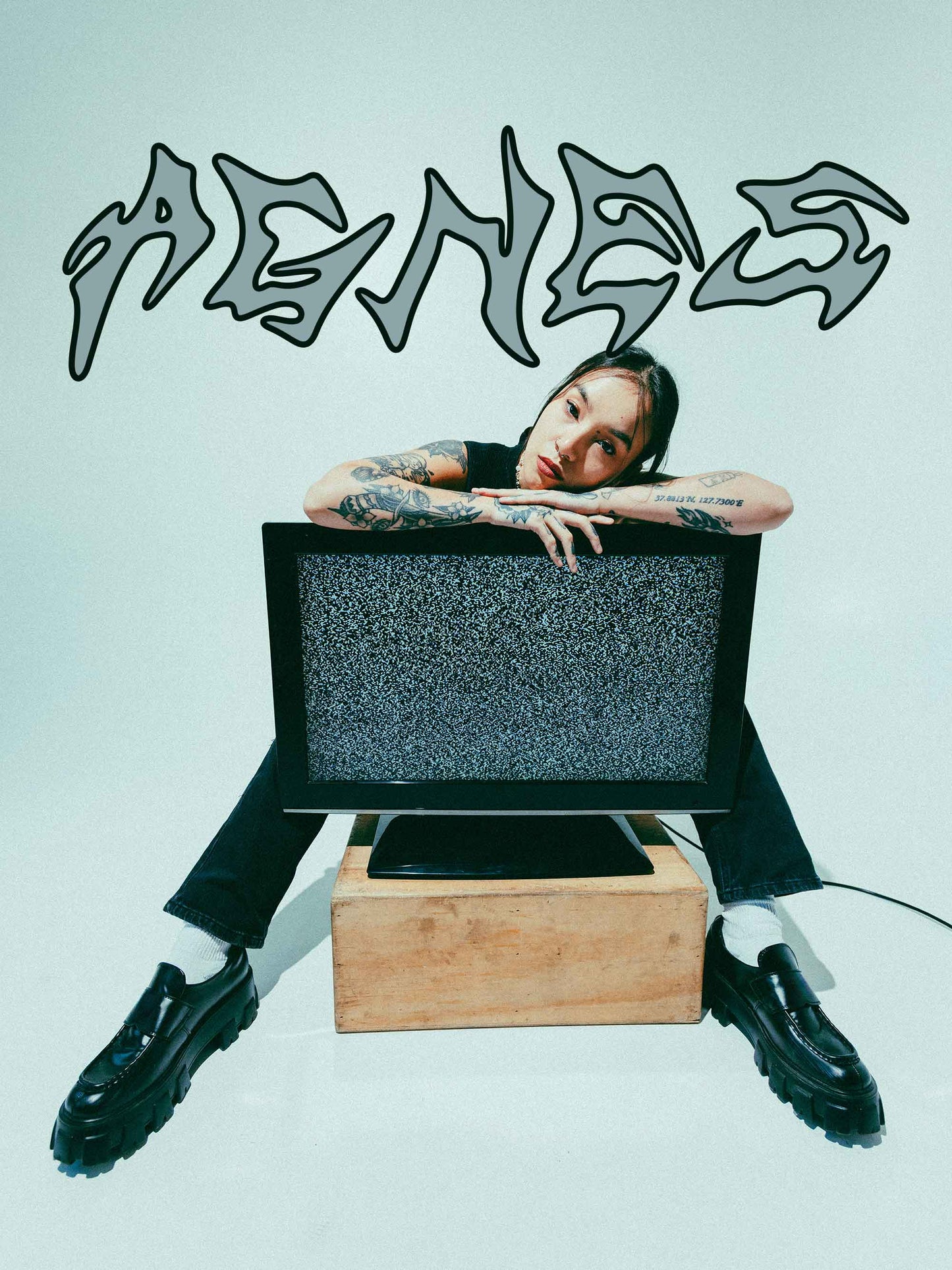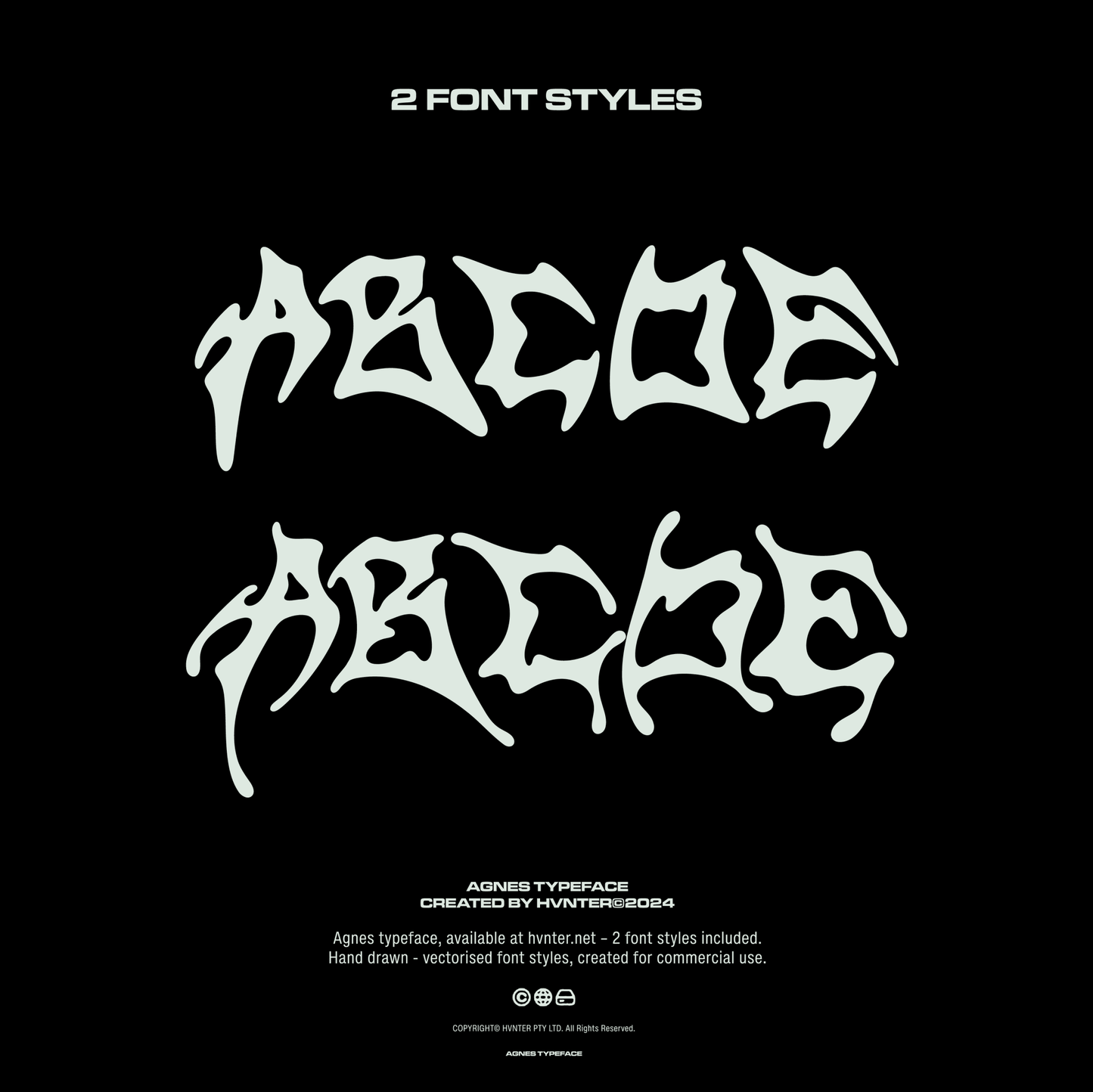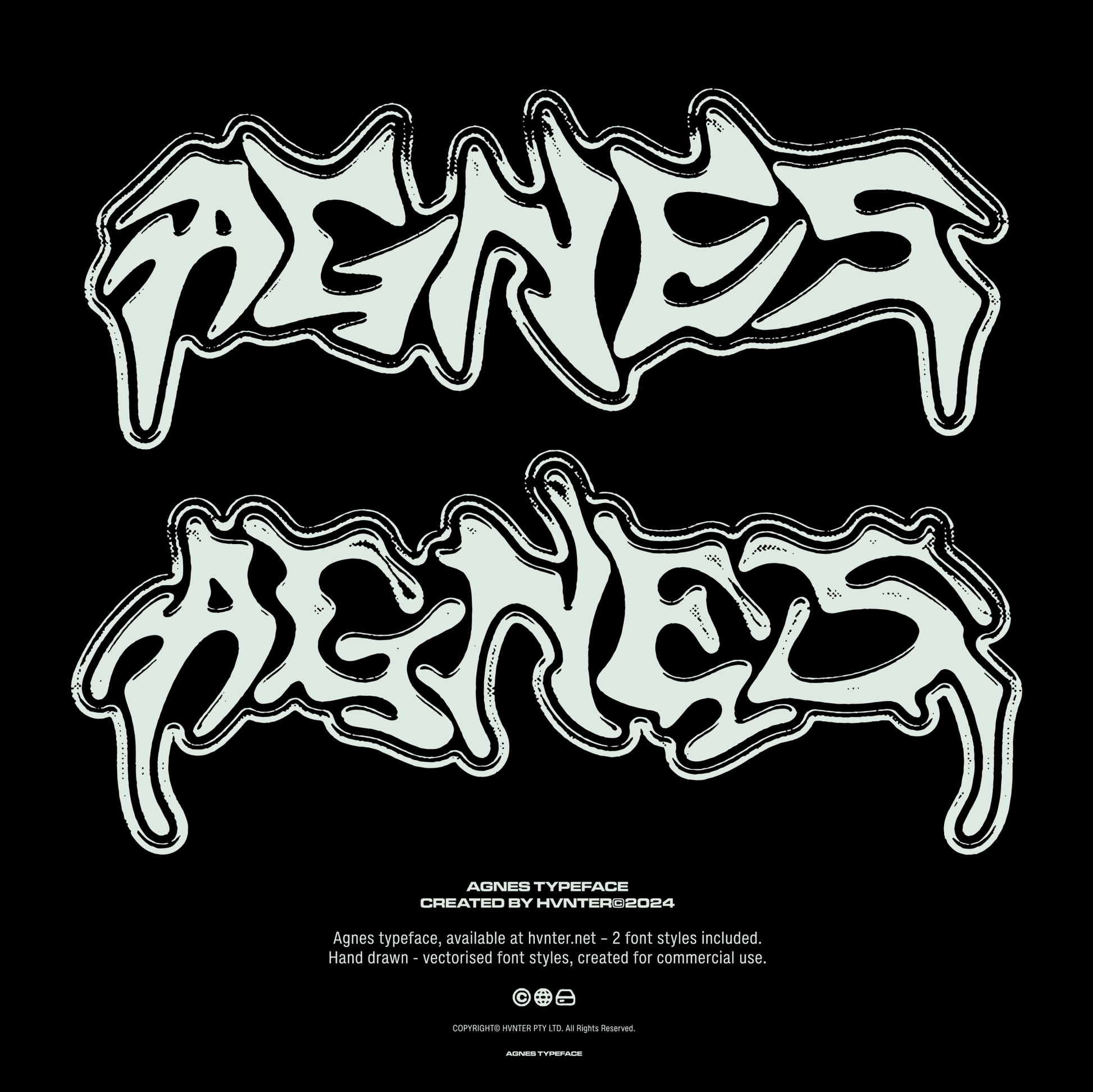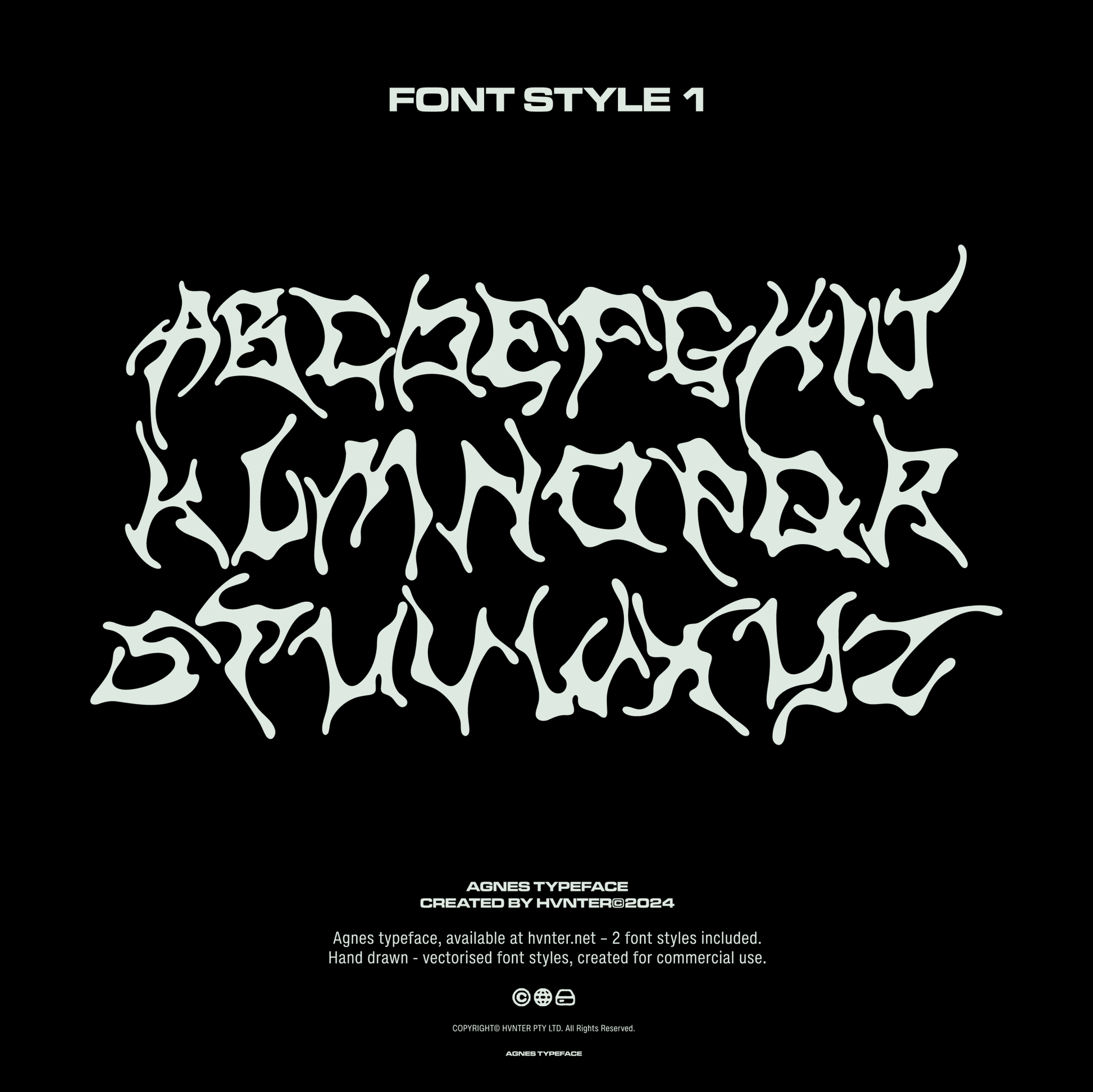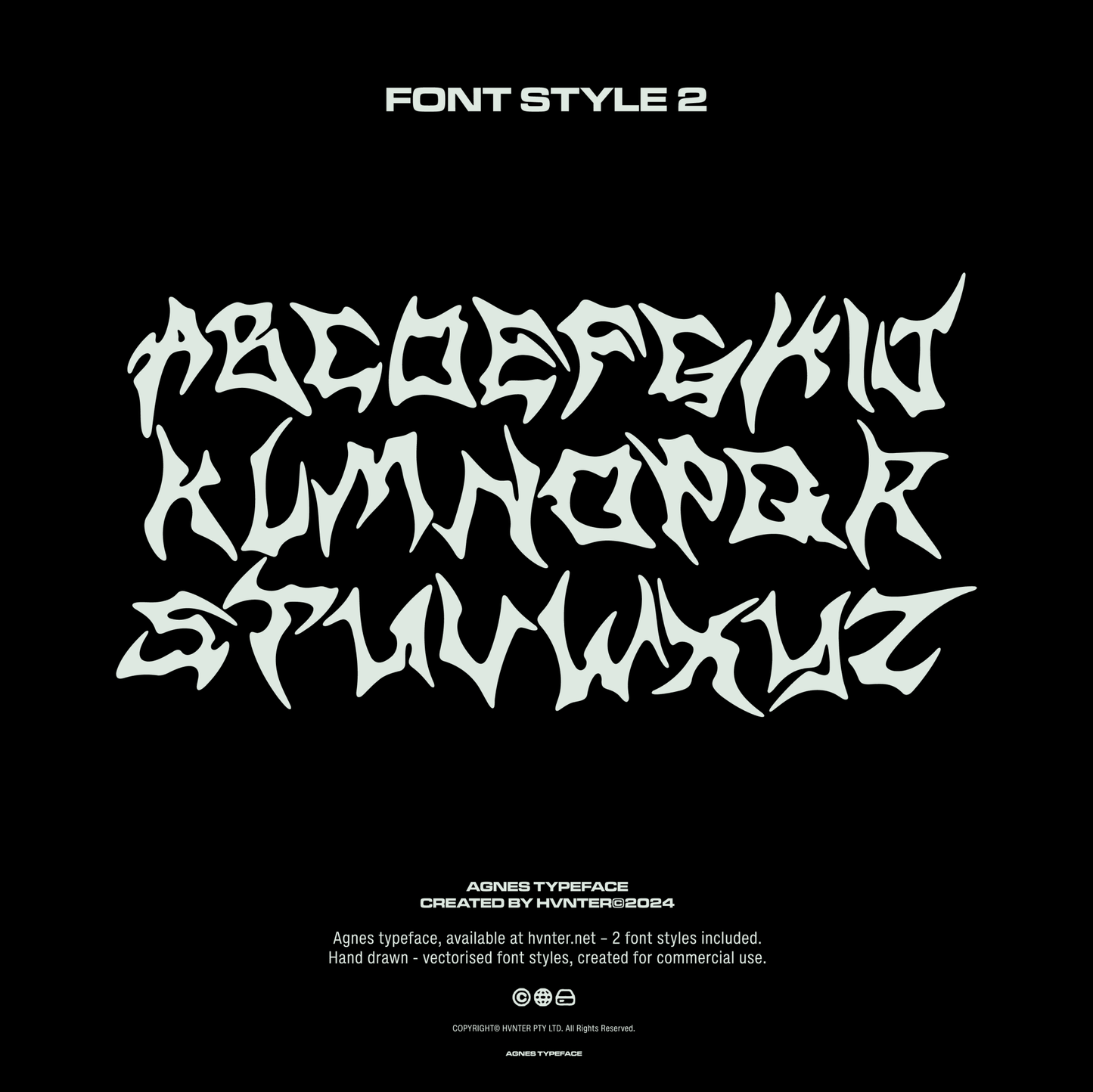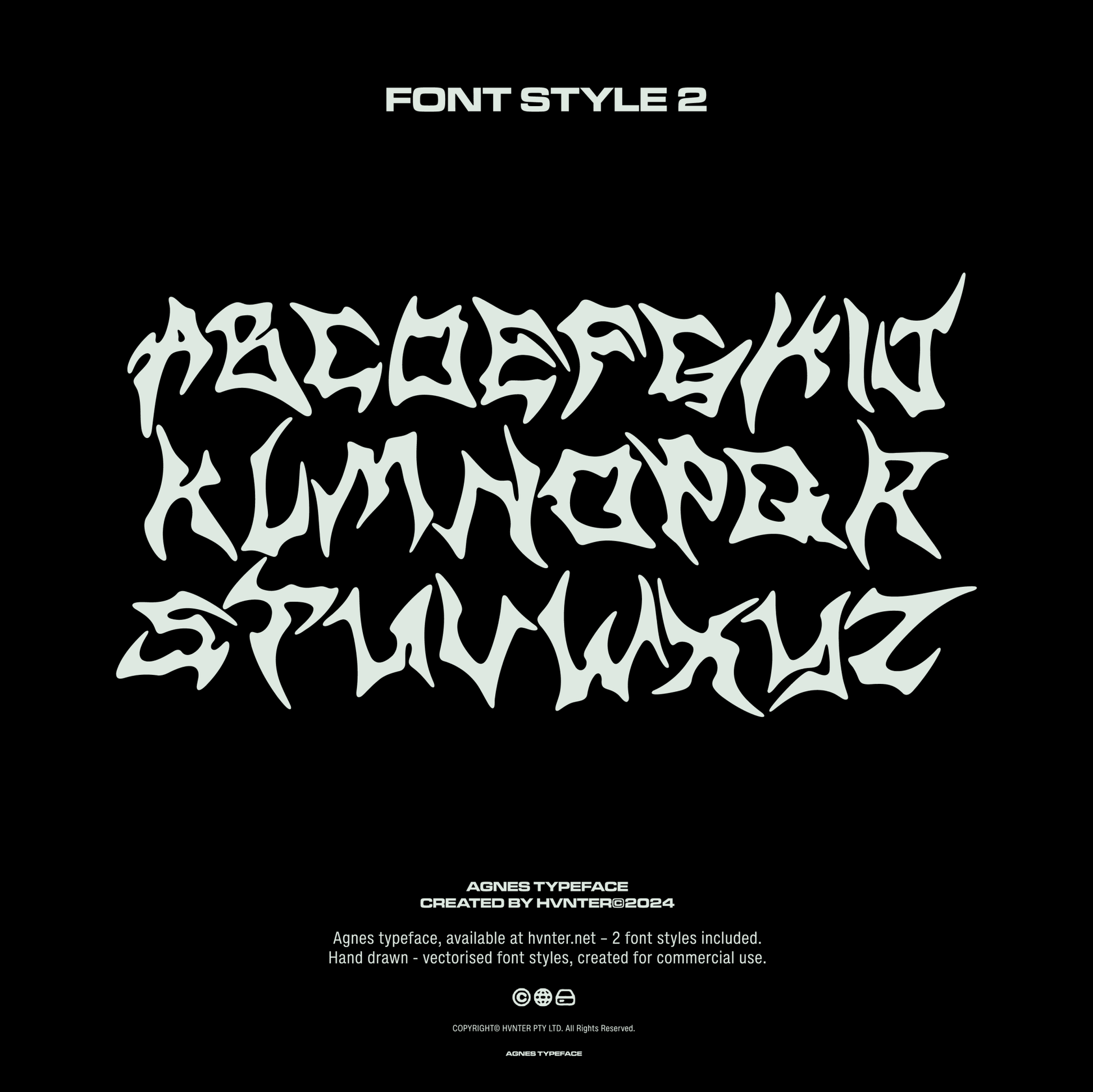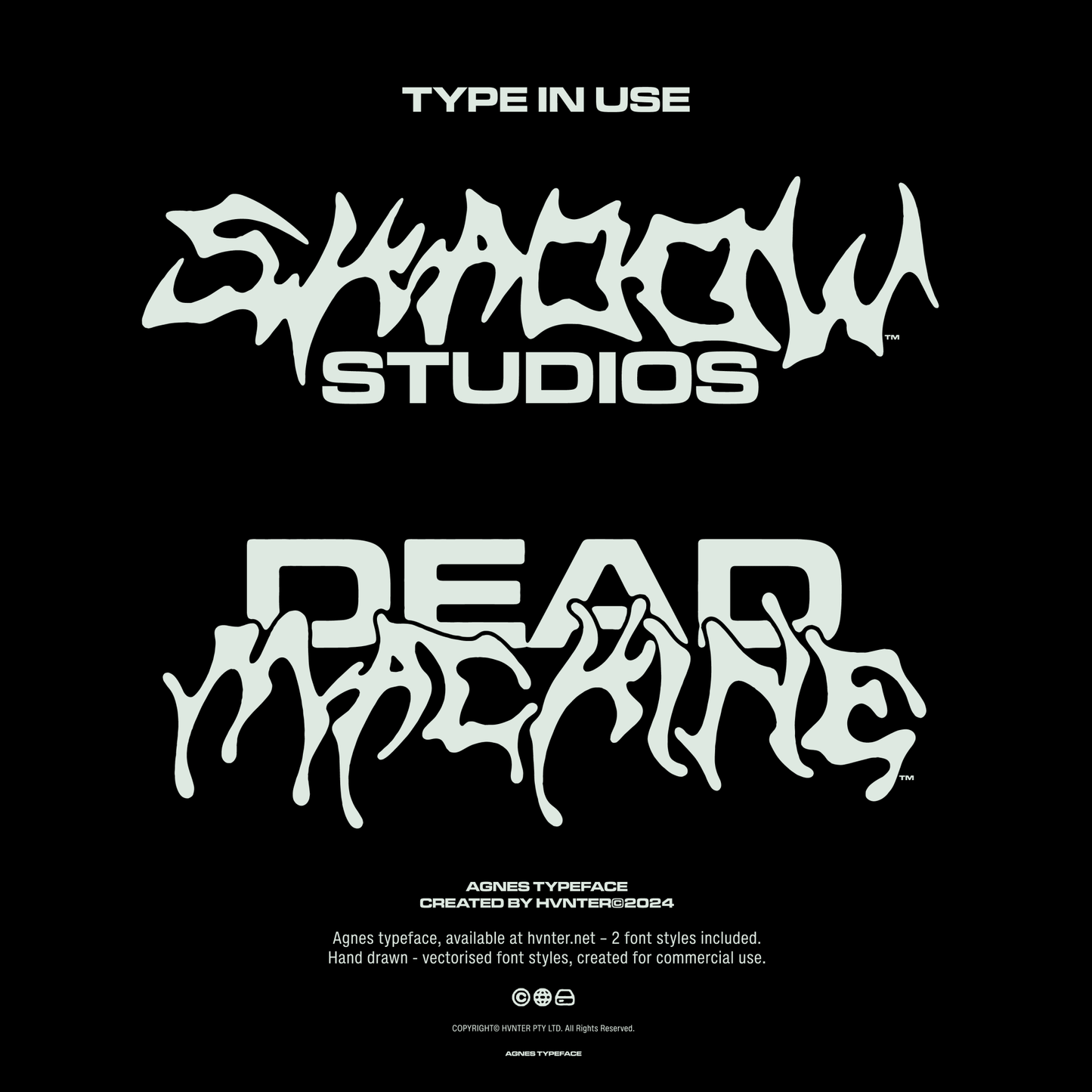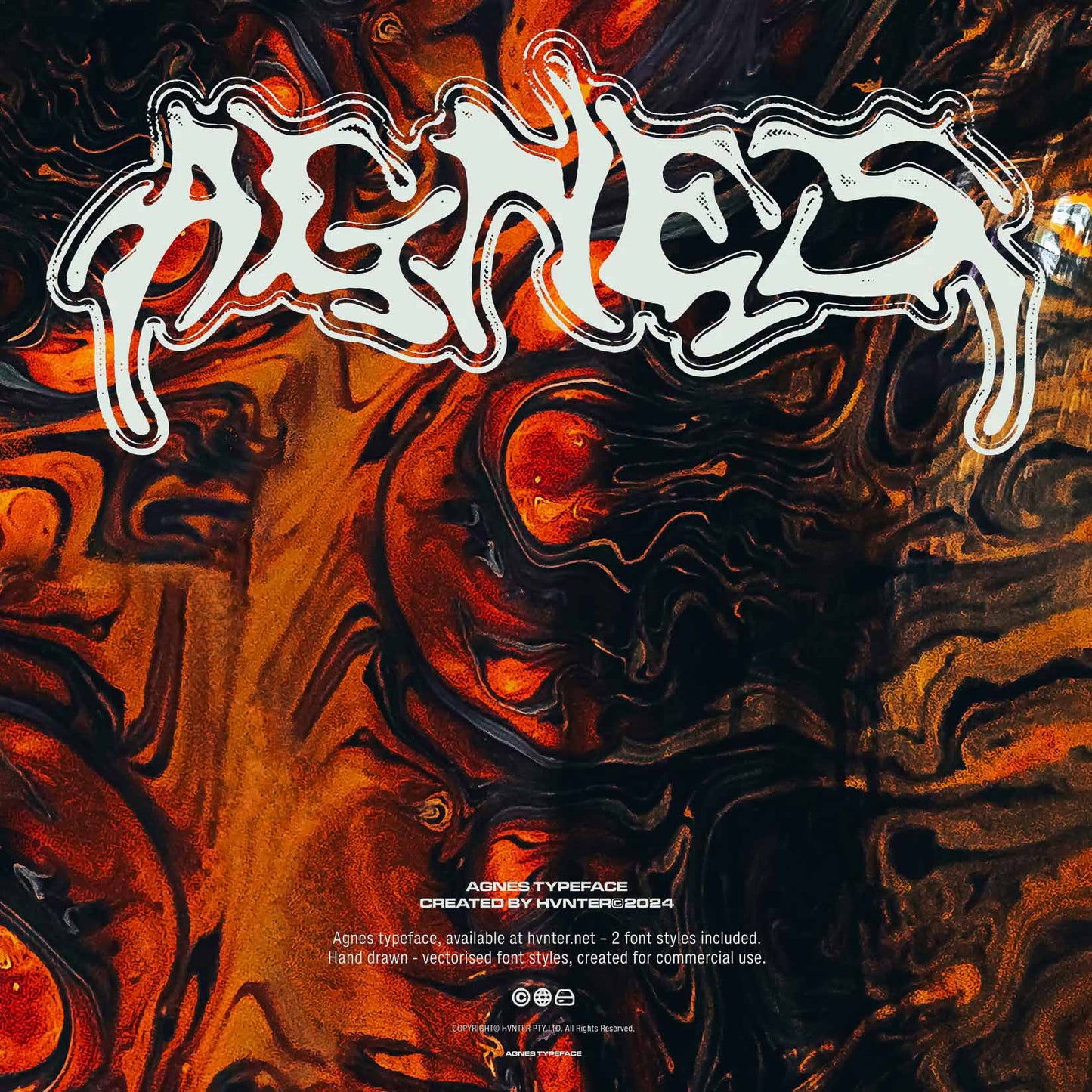
AGNES Typeface — Liquid Metal Letterforms
AGNES is a hand-drawn metal typeface that looks like it’s been pulled through a speaker cone and cooled in neon. It’s sharp, melted, and heavy—built for headlines, logos, album covers, posters, editorial title cards, and any layout that needs a little distortion baked into the DNA.
You get A–Z in two unique font styles, giving you two different flavors of the same idea: one more wiry + irregular, one more bold + blade-like. Both are designed to feel tactile—like ink, chrome, or a scratched-up VHS title sitting on top of a dead TV.
Best For
- Album + single cover artwork
- Gig posters + nightlife flyers
- Streetwear graphics + merch drops
- Logo marks for music, fashion, or culture brands
- Title cards + motion graphics (music videos, reels, trailers)
- Editorial headlines that need bite
- Creative agency internal projects that don’t ask permission
AGNES hits hardest when it’s big. Oversized. Cropped. Layered over texture. Let it bleed.
- Perfect for big type moments: brand marks, drop headers, tees, flyers, and cover systems.
Agnes Typeface — created by HVNTER.